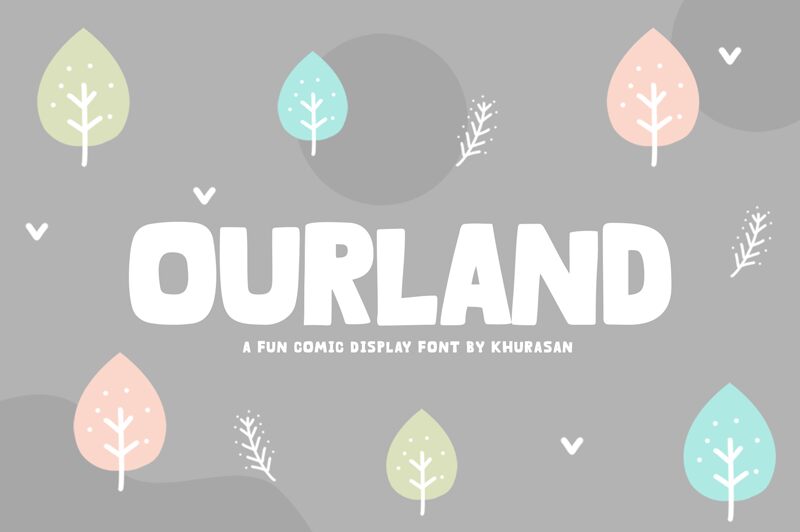
Ourland, the latest display font designed by Khurasan, is a playful and exuberant typeface that adds a touch of whimsy to any project. Its cartoon style and extra-bold weight make it perfect for children's books, comic books, and video game titles. Ourland's semi-expanded width also makes it a great choice for creating eye-catching headlines in posters or advertisements. Whether you're designing a fun-loving logo or crafting an imaginative flyer, Ourland is sure to bring your ideas to life with its vibrant personality and bold presence.